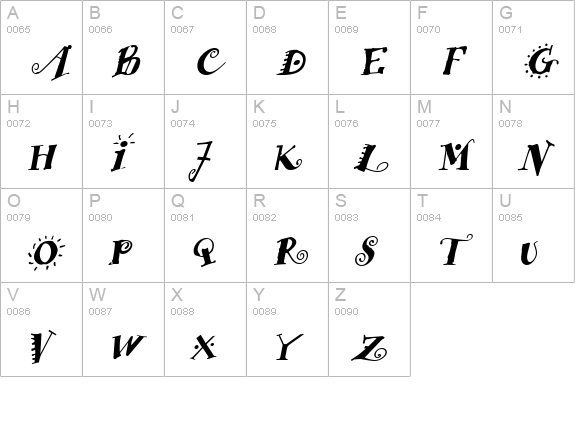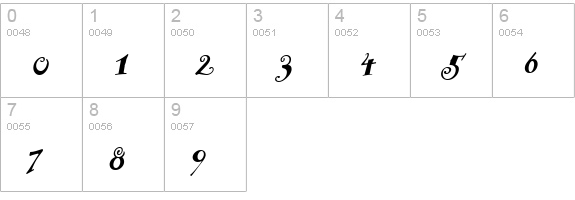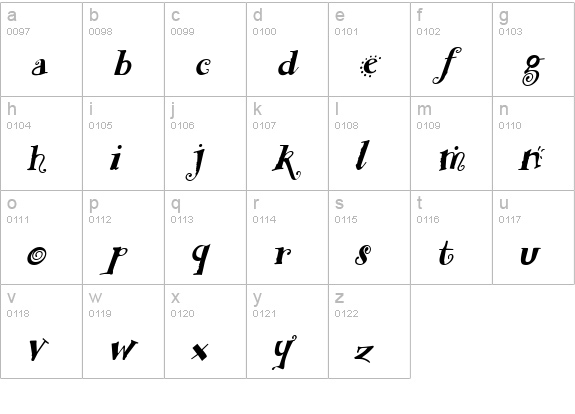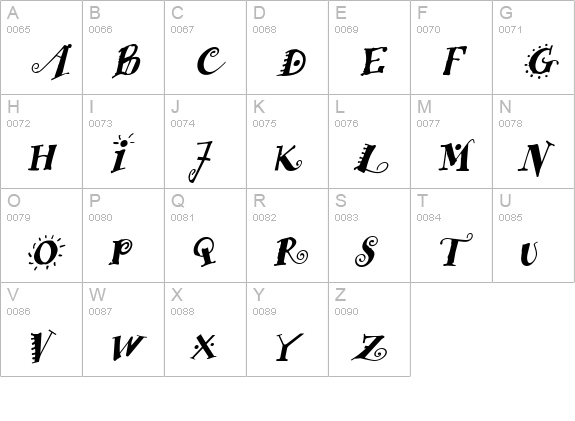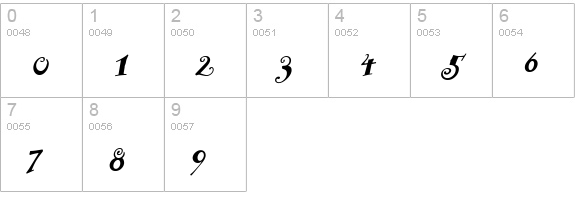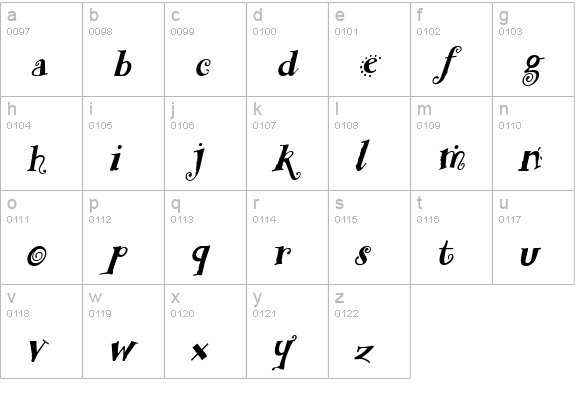
Funstuff Bold Italic is a strong, high-contrast, italic variant in the Funstuff typeface family \xE2\x80\x94 well suited to headlines, attention-grabbing titles, and strong calls-to-action.
Funstuff Bold Italic font is a playful and energetic typeface that adds a touch of whimsy to any design project. Its bold and italic styling creates a sense of movement and fun, making it perfect for eye-catching headlines and attention-grabbing text. This versatile font is ideal for a variety of design applications, from posters and flyers to social media graphics and branding materials. What makes Funstuff Bold Italic font even better is that it is available for free download at FontsMarket.com. This means you can easily access this unique and engaging font to enhance your creative projects without any cost. So why wait? Add a dash of fun and creativity to your designs with Funstuff Bold Italic font today!